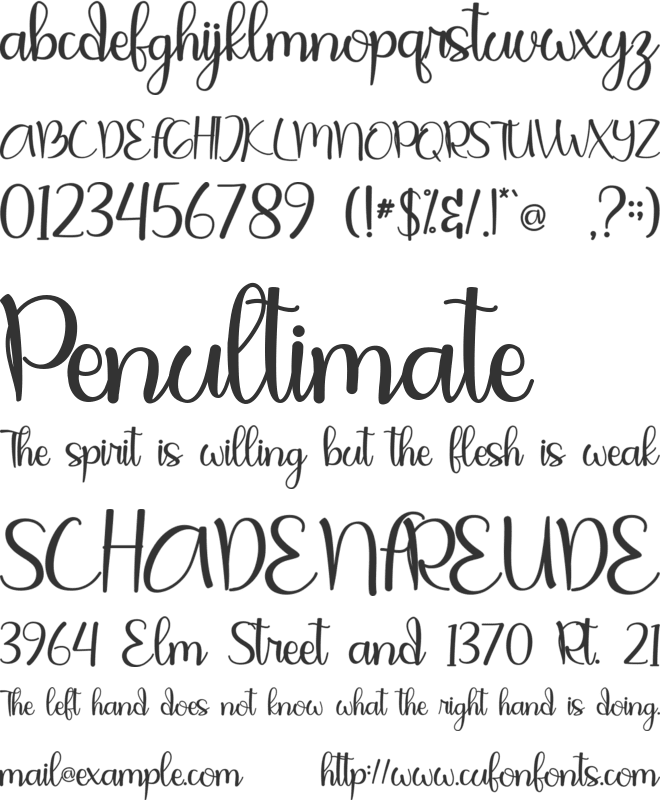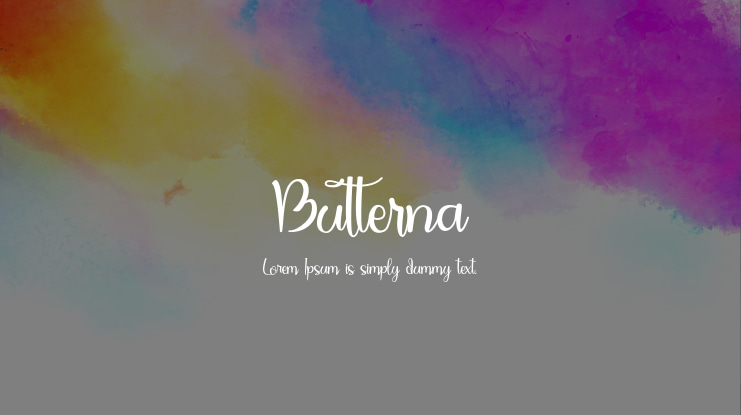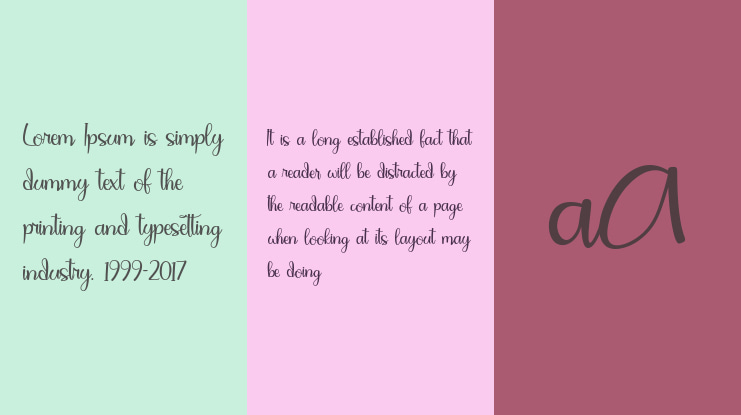
Butterna Font
Butterna is a simple handwrittten font which consists of simple Uppercase alternate, lowercase ligatures, and lowercase swash. Its alternate and swash are mini flower-shaped which looks beautiful when the font applied to any design such as weeding invitation, restaurant banner, printed plate, printed mug, logo design, weeding invitation, printed quotation, greeting card, birthday card, and etc. This font has been made with precision and heart by Endri Sulistyawan. Thank you for visiting my profile. I hope you like it. happy typing :)
Endri Sulistyawan
Rashatype